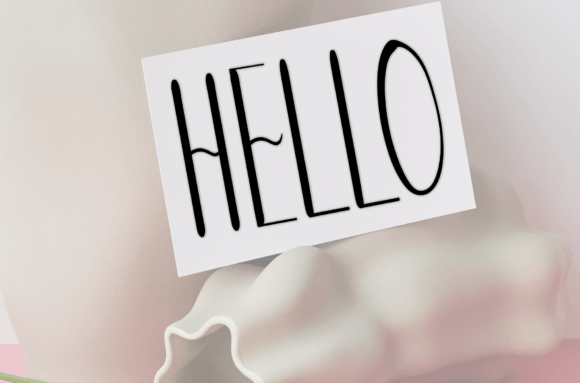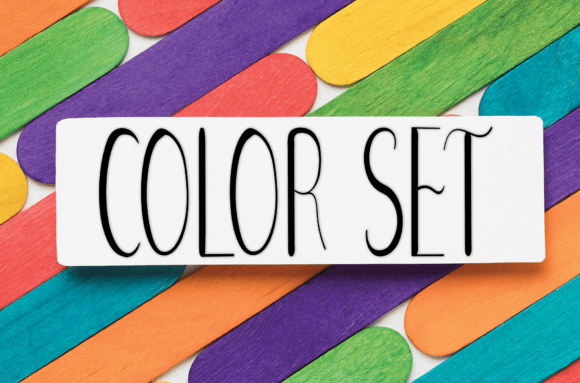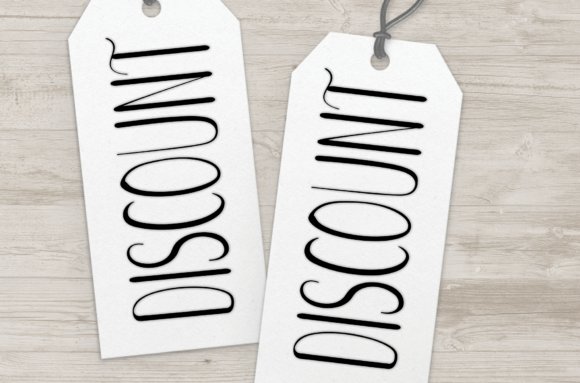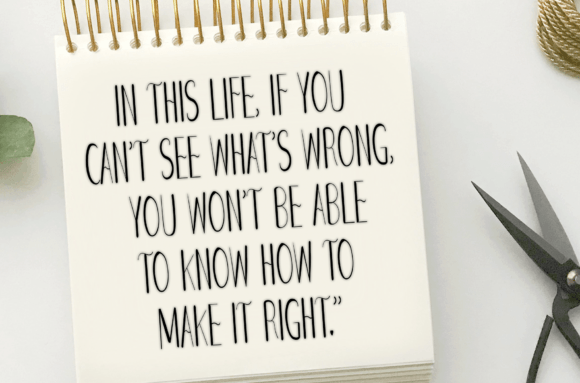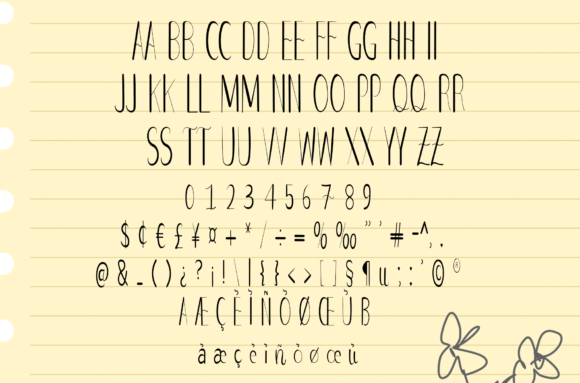
Introducing Good Morning Font: Elevate Your Designs with a Cool and Playful Touch
Are you tired of using the same old fonts in your designs? Look no further! Good Morning Font is here to revolutionize your creative projects with its cool, simple, and playful handwritten sans serif style. This incredibly versatile font is perfect for designers and crafters who want to add a fresh touch to their work.
The Characteristics of Good Morning Font
Good Morning Font is a handwritten sans serif font that exudes a sense of friendliness and approachability. Its simple and clean lines make it easy to read and understand, while its playful curves add a touch of whimsy and creativity. This font is perfect for designs that require a personal and human touch, such as:
- Blog posts and articles
- Branding and packaging
- Digital and print advertisements
The Benefits of Using Good Morning Font
So, why choose Good Morning Font for your designs? Here are just a few benefits:
- Versatility: Good Morning Font is incredibly versatile and can be used in a wide range of designs, from digital to print.
- Readability: The font’s clean lines and simple curves make it easy to read, even at small sizes.
- Uniqueness: Good Morning Font has a unique and playful style that will set your designs apart from the crowd.
How to Use Good Morning Font in Your Designs
Using Good Morning Font in your designs is easy! Here are a few tips to get you started:
- Pair it with other fonts: Good Morning Font pairs well with other sans serif fonts, such as Arial, Helvetica, or Open Sans.
- Experiment with colors: Try using Good Morning Font in different colors to add visual interest to your designs.
- Play with sizes: Use Good Morning Font in different sizes to create visual hierarchy and emphasis.
- Add graphics and images: Combine Good Morning Font with graphics and images to create engaging and dynamic designs.
Examples of Good Morning Font in Action
Good Morning Font can be used in a wide range of designs, from digital to print. Here are a few examples:
- Social media graphics: Use Good Morning Font to create eye-catching social media graphics that will grab the attention of your followers.
- Blog posts and articles: Add a personal touch to your blog posts and articles with Good Morning Font.
- Branding and packaging: Use Good Morning Font to create unique and memorable branding and packaging designs.
- Invitations and greeting cards: Add a playful touch to your invitations and greeting cards with Good Morning Font.
In conclusion, Good Morning Font is a cool, simple, and playful handwritten sans serif font that is perfect for designers and crafters who want to add a fresh touch to their work. Its versatility, readability, and uniqueness make it an excellent choice for a wide range of designs. So why not give Good Morning Font a try and see how it can elevate your designs to the highest levels?
- What is Good Morning Font?
- Good Morning Font is a cool, simple, and playful handwritten sans serif font.